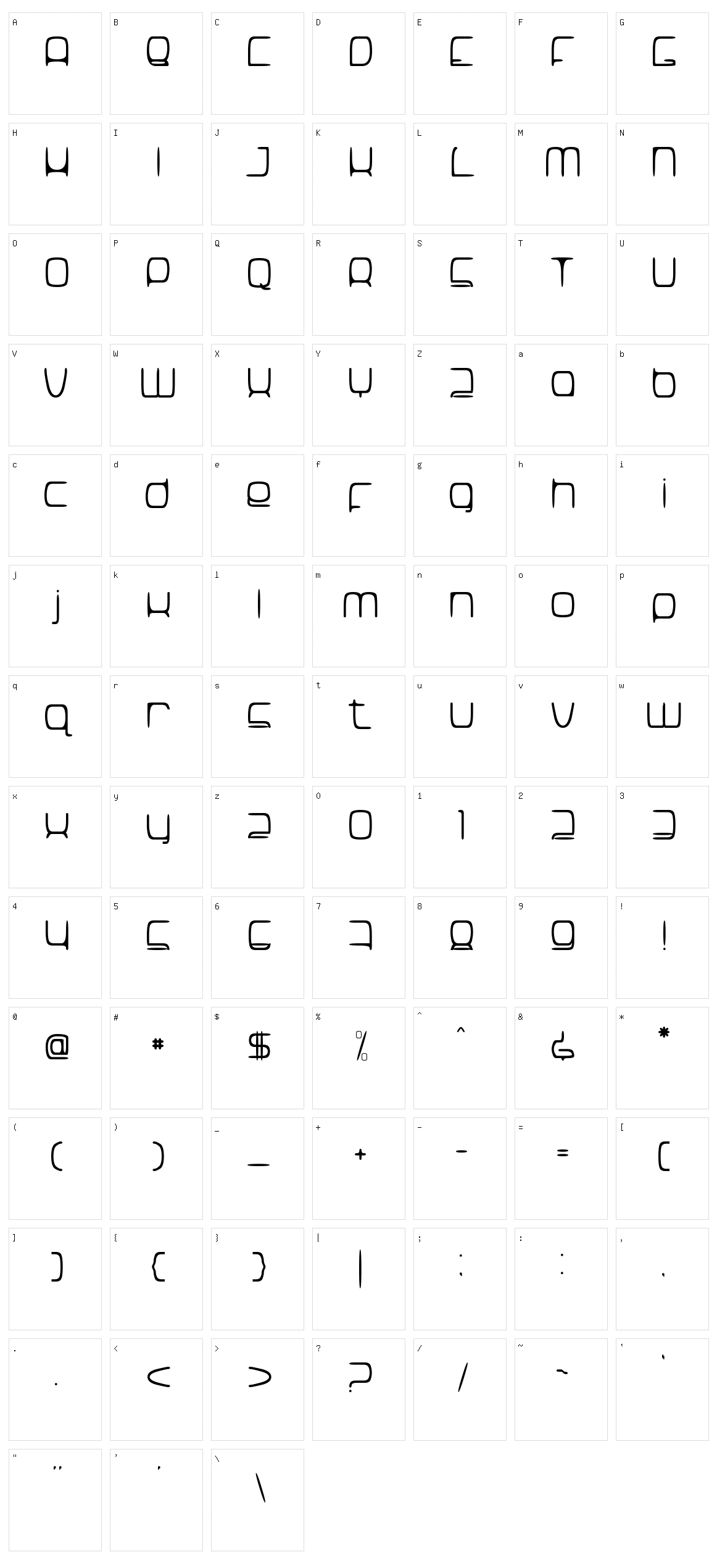
By Eric Wiryanata. December 2006.
Snorg was a noiserock band from Indonesia. but already disbanded after a few show
and participate in some local indie compilation project
the first version of the font was dedicated to the band. and now i dedicate this second version for the band too.
Note#2: This typeface is ideal for logos and general design.
also suitable to be used with word-processors as long as you didn't use non qwerty keyboard sign. i put some accents here.